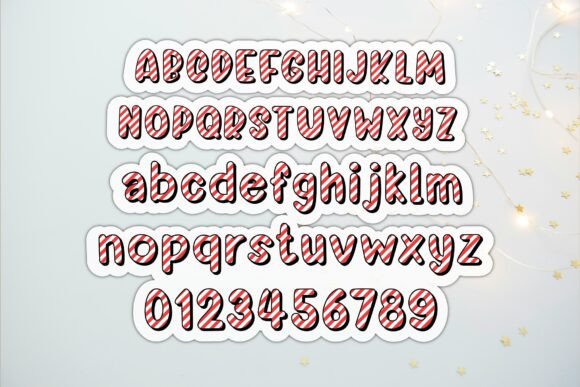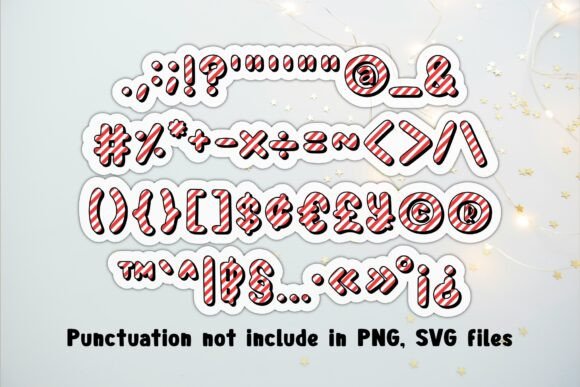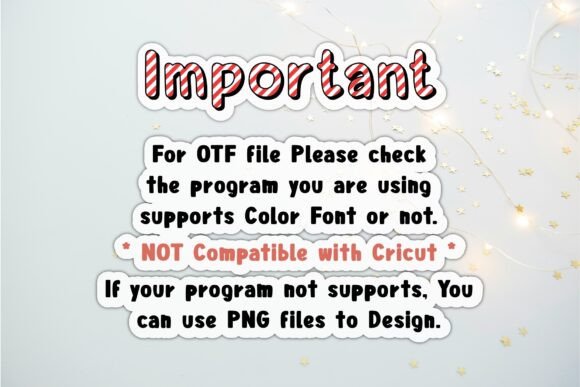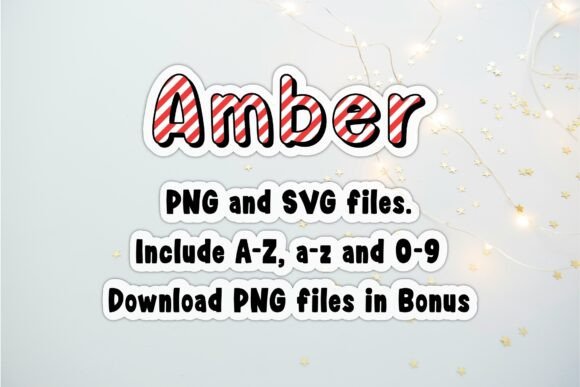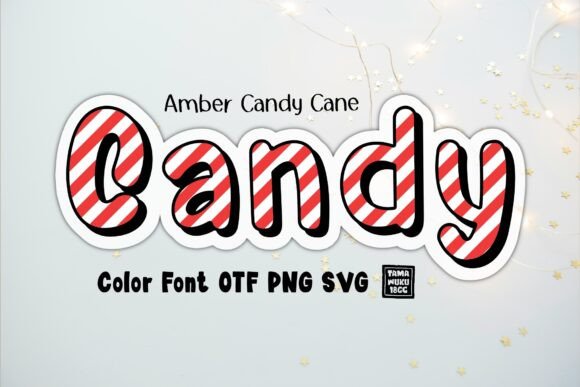
Introducing the Amber Candy Cane Font: A Festive Christmas Theme for Your Designs
Are you looking for a font that captures the essence of Christmas and adds a touch of elegance to your designs? Look no further than the Amber Candy Cane Font! This stunning font features a red and white color scheme with a subtle shadow effect, perfect for creating eye-catching designs for the holiday season.
The Amber Candy Cane Font is incredibly versatile and can be used for a wide range of projects, including:
- T-shirts and apparel
- Crafty DIY projects, such as handmade cards and gift tags
- Holiday-themed party decorations and invitations
- And much more!
Why Choose the Amber Candy Cane Font?
So, why should you choose the Amber Candy Cane Font for your Christmas-themed designs? Here are just a few reasons:
- Unique and eye-catching design: The Amber Candy Cane Font features a distinctive red and white color scheme with a subtle shadow effect, making it perfect for creating designs that stand out.
- Versatile: The Amber Candy Cane Font can be used for a wide range of projects, from t-shirts and social media graphics to crafty DIY projects and more.
Tips for Using the Amber Candy Cane Font
Here are a few tips for getting the most out of the Amber Candy Cane Font:
- Experiment with different colors: While the font’s red and white color scheme is perfect for Christmas, you can also experiment with different colors to create unique designs.
- Use it with other festive fonts: The Amber Candy Cane Font pairs well with other festive fonts, such as snowflake-themed fonts or bold, holiday-themed fonts.
- Add some sparkle: Consider adding some sparkle or glitter effects to your designs to make them even more eye-catching.
The Amber Candy Cane Font is a beautiful and versatile font that’s perfect for adding a touch of Christmas magic to your designs. With its unique red and white color scheme and subtle shadow effect, it’s sure to make your designs stand out. Whether you’re a designer, crafter, or maker, this font is a must-have for the holiday season.